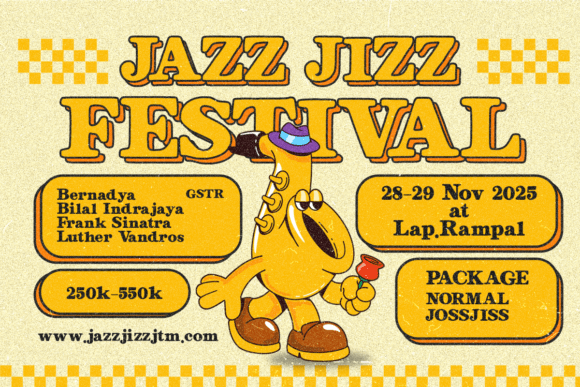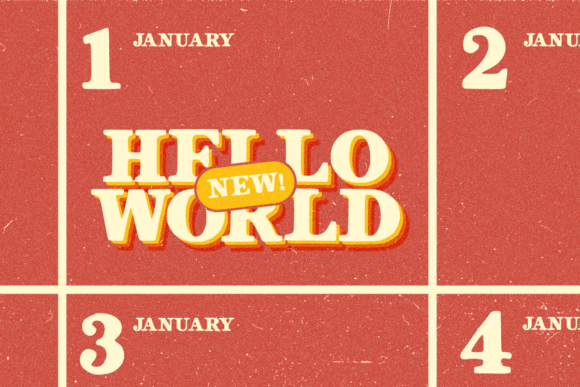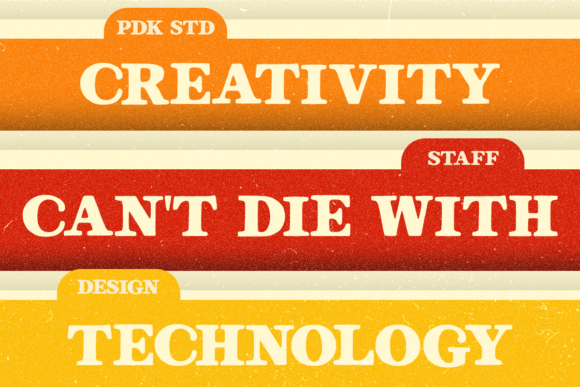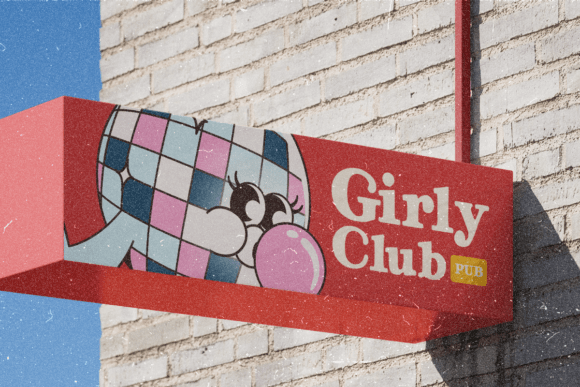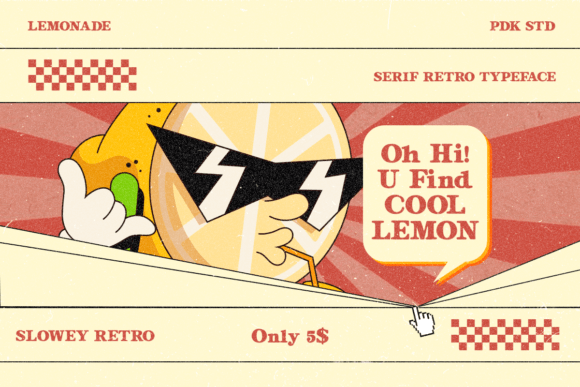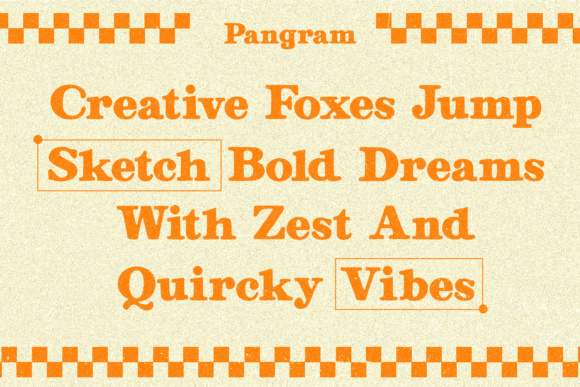
Introduction to Slowey Retro Font Font
Fonts play a crucial role in design, and the Slowey Retro Font font is a typeface that brings both character and versatility to any project. Whether you’re working on a branding project, a website, or a print design, the Slowey Retro Font font offers a unique style that can elevate your work.
Slowey Retro is a vibrant serif display font infused with groovy 70s energy and a whole lot of charm.
With bold curves, vintage flair, and a punchy presence, this typeface brings joyful nostalgia to your designs Inspired by retro posters, funky signage, and disco-era aesthetics, itβs built to stand out with character and confidence.
Key Features of Slowey Retro Font Font
Why Choose Slowey Retro Font Font?
The Slowey Retro Font font is more than just a typeface β it’s a design tool that helps you communicate your message with style and clarity. Its unique character set and versatile design make it suitable for a wide range of applications, from elegant invitations to bold headlines.
With its carefully crafted letterforms and balanced proportions, the Slowey Retro Font font ensures readability and visual appeal across all mediums.
What makes Slowey Retro Font font special?
The Slowey Retro Font font stands out with its unique design, exceptional readability, and versatility across various design applications.